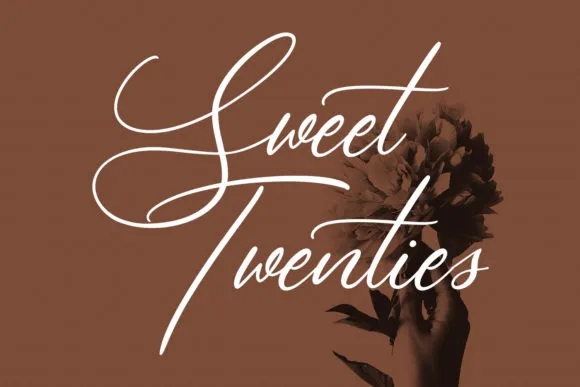
Calipatrya Signature Font Free
Calipatrya Signature Font is an extravagant manually written script textual style.
It highlights medium differentiation strokes, fun characters, ligatures and substitutes.
Add it unhesitatingly to your number one manifestations and allow yourself to be flabbergasted by the result created.